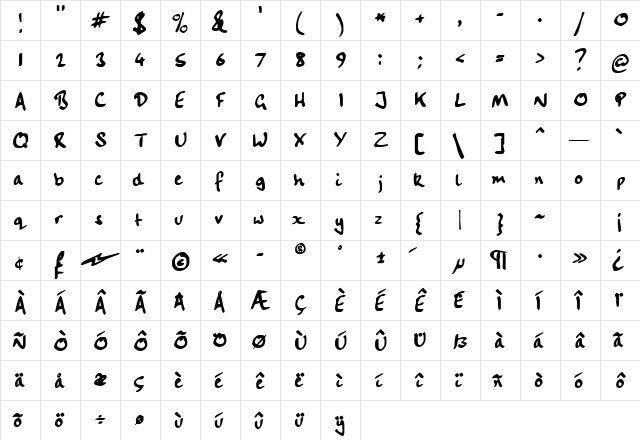
Handwriting Plain
Design Context for Handwriting Typeface
Handwriting flows with the natural rhythm of handwritten lettering, making it ideal for designs that call for warmth and personal expression.
Font Pairing: Combine Handwriting with a simple geometric sans for maximum contrast — the tension between flowing curves and clean structure is a classic typographic pairing.
Pro Tip: Pair Handwriting with a clean sans-serif for supporting text. The contrast between fluid script and geometric structure creates an elegant typographic hierarchy.